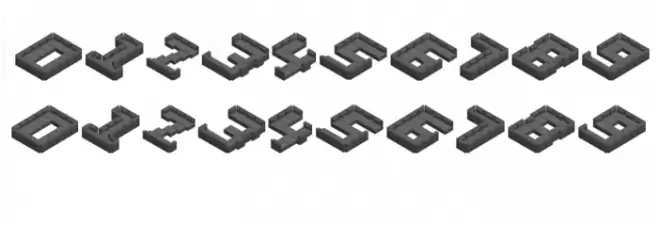
IKEA-VALLENTUNA-SANS Font
IKEA-VALLENTUNA-SANS Description
This font features a bold, three-dimensional style with a blocky, geometric appearance. Each character is constructed with a consistent thickness, giving it a robust and sturdy look. The design incorporates sharp angles and straight lines, creating a modern and industrial feel. The characters are uniformly spaced, maintaining a clean and organized appearance. The font's unique 3D effect is achieved through the use of shadows and highlights, adding depth and dimension to each letter and number. This distinctive style makes it stand out, suitable for projects that require a strong visual impact.
A bold, 3D geometric font with a modern, industrial look from Uncategorized fonts.